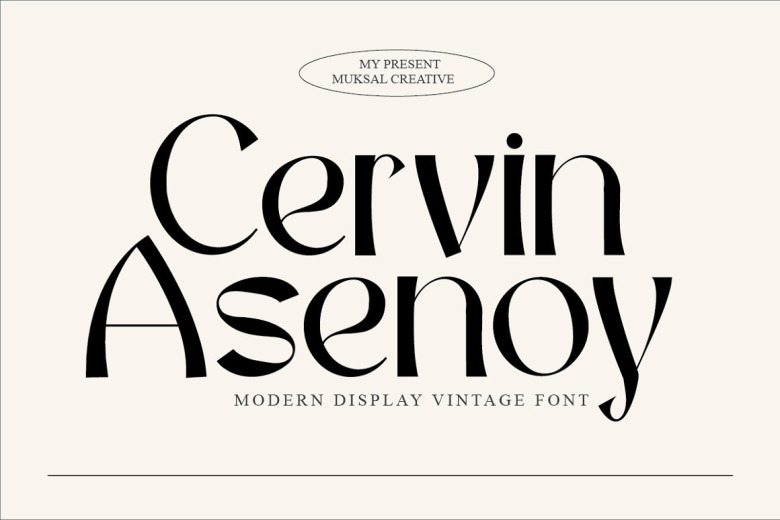
Cervi Asenoy Font
Cervi Asenoy is a new Display Font that was designed particularly suitable for modern projects with classy and Retro typesetting. It can be used for projects such as magazines, banners, stationery, branding, name tags, invitations, and among others. These fonts come in PUA encoded so every character and swash could easily be typed on the keyboard.
Cervi Asenoy Display Font